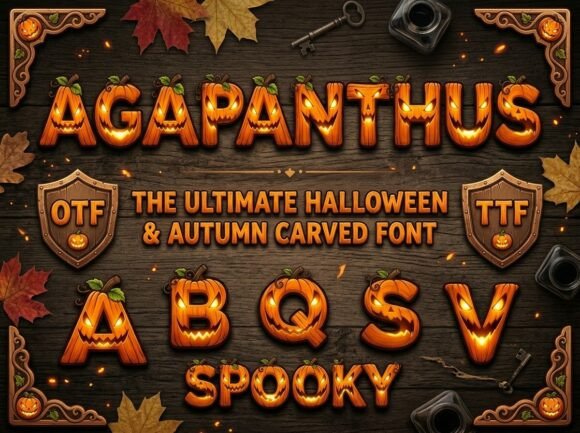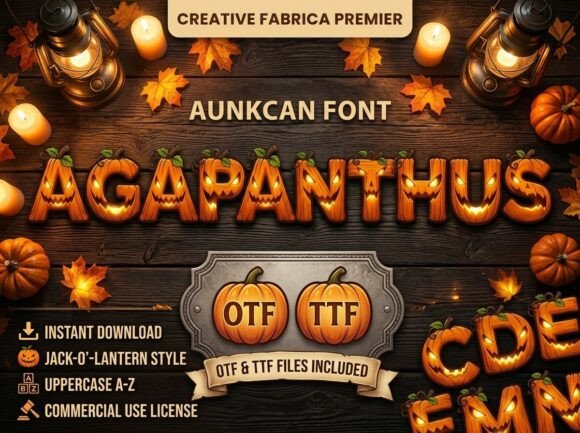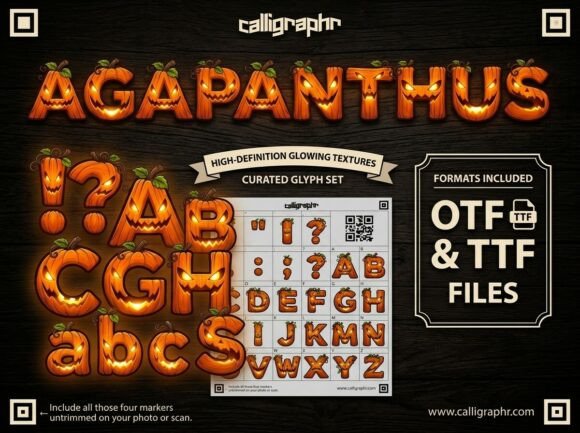
Light Up the Night with Agapanthus: The Ultimate Halloween Display Font
As the spookiest time of the year approaches, designers and crafters are on the lookout for the perfect font to add a touch of eerie elegance to their Halloween-themed projects. Look no further than Agapanthus, a spectacular display font that brings the magic of the Jack-o’-lantern to life. This expertly crafted font is designed to illuminate your designs with a wicked, luminous charm that’s sure to leave a lasting impression.
The Art of Agapanthus
Agapanthus is more than just a font – it’s a masterpiece of Halloween-themed design. Each character is meticulously crafted with high-definition glowing textures, featuring carved pumpkin faces that peer out with a wicked, luminous grin. The attention to detail is stunning, from the realistic wood-grain pumpkin skin to the flickering interior light that gives the illusion of a real, glowing Jack-o’-lantern.
A Curated Glyph Set
Agapanthus is a curated glyph set that offers a complete alphabet and punctuation, carefully designed to work together to create a cohesive, hand-carved look. The font is perfect for a variety of design applications, including spooky event posters, haunted house branding, festive social media graphics, and seasonal merchandise. Whether you’re designing a flyer for a Halloween party or creating a logo for a haunted attraction, Agapanthus is the perfect choice.
Key Features of Agapanthus
- High-definition glowing textures: Each character features a unique, high-definition texture that gives the illusion of a real, glowing Jack-o’-lantern.
- Carved pumpkin faces: The font features a range of carved pumpkin faces, each with its own unique expression and personality.
- Realistic wood-grain pumpkin skin: The font includes realistic wood-grain textures that give the pumpkins a lifelike appearance.
- Flickering interior light: The font features a subtle flickering effect that gives the illusion of a real, glowing candle inside the pumpkin.
- Complete alphabet and punctuation: The font includes a complete alphabet and punctuation, carefully designed to work together to create a cohesive, hand-carved look.
Design Applications for Agapanthus
Agapanthus is a versatile font that can be used in a variety of design applications, including:
- Spooky event posters: Create eye-catching posters for Halloween parties, haunted house events, and other spooky gatherings.
- Haunted house branding: Use Agapanthus to create a logo or branding materials for your haunted house or haunted attraction.
- Festive social media graphics: Add a touch of Halloween magic to your social media graphics with Agapanthus.
- Seasonal merchandise: Use Agapanthus to create seasonal merchandise, such as t-shirts, mugs, and other Halloween-themed items.
Why Choose Agapanthus?
Agapanthus is the perfect choice for designers and crafters looking for a unique and eye-catching font to add a touch of Halloween magic to their projects. Here are just a few reasons why:
- Unique and eye-catching design: Agapanthus features a unique and eye-catching design that’s sure to stand out in any design application.
- High-quality textures and graphics: The font features high-quality textures and graphics that give the illusion of a real, glowing Jack-o’-lantern.
- Versatile design applications: Agapanthus can be used in a variety of design applications, from spooky event posters to seasonal merchandise.
Agapanthus is a spectacular Halloween-themed display font that’s sure to add a touch of eerie elegance to your designs. With its unique and eye-catching design, high-quality textures and graphics, and versatile design applications, Agapanthus is the perfect choice for designers and crafters looking to create spooky and festive designs. So why wait? Light up the night with Agapanthus and bring the magic of the Jack-o’-lantern to life in your designs.